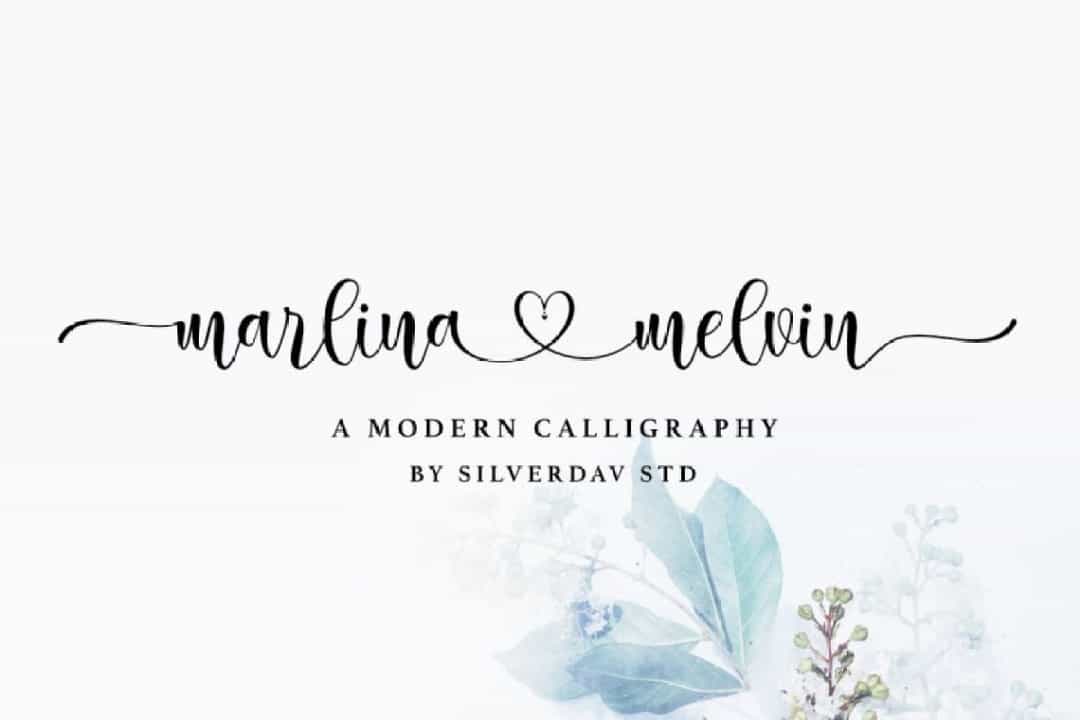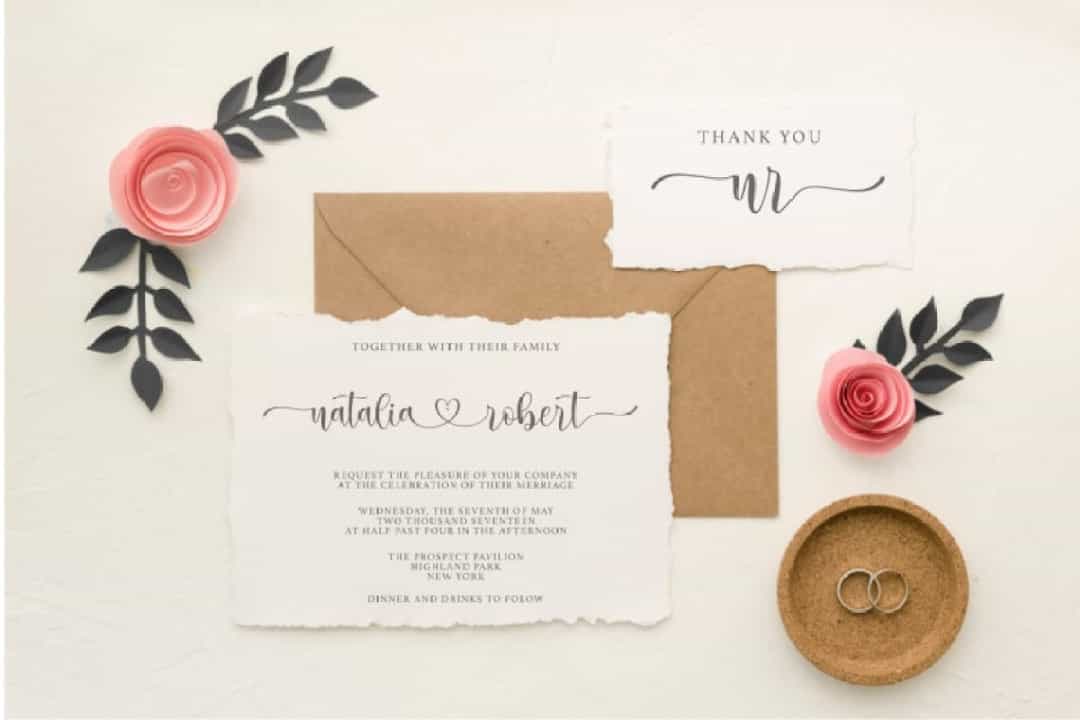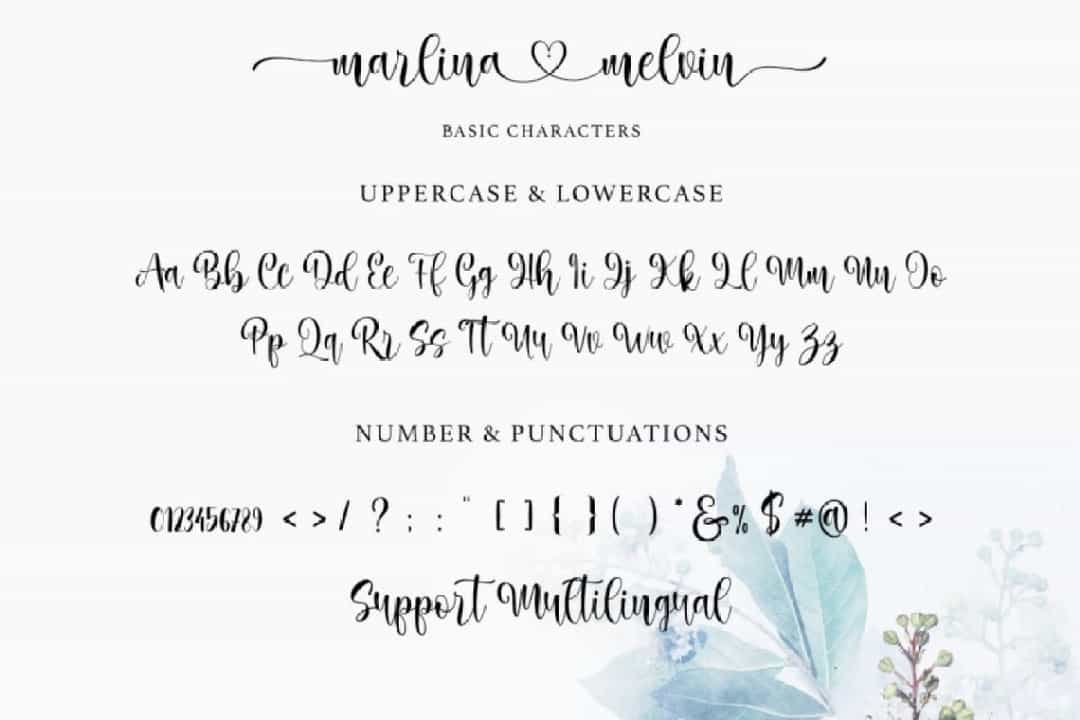
Discover Marlina Melvin Font, part of the Calligraphy collection—a versatile and unique font perfect for adding a personal touch to your projects. Download it for free and enjoy crafting designs with style, from invitations to social media posts. This font is available exclusively for personal use, giving you the freedom to create without limits. Unlock your creativity with Marlina Melvin Font today!
Marlina Melvin Font! A gorgeous flowing calligraphy script typeface that was carefully designed using an ink pen and pointed pen. Each letter is distinctive and ideal for anyone searching for a modern calligraphy typeface. The creators have spent hours creating and enhancing this font, which comes with tons of features that you get the look of a modern calligraphy script that looks like it were composed by your.